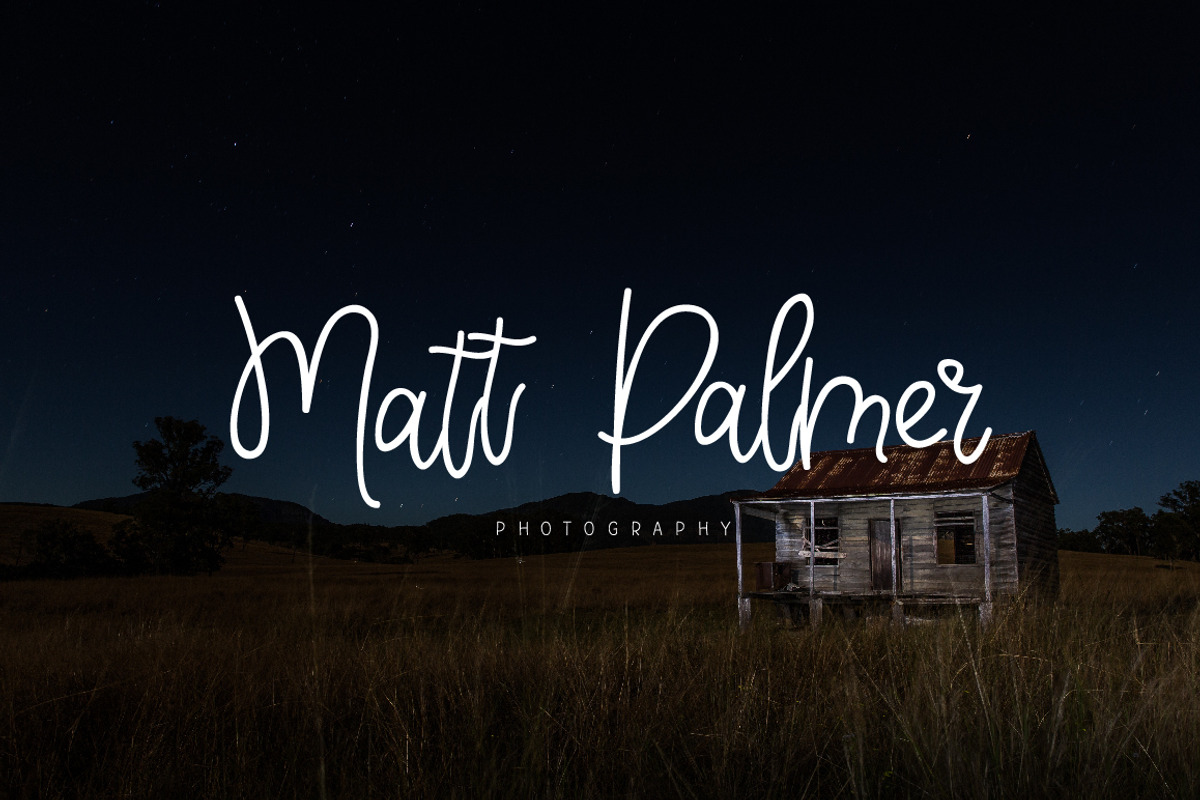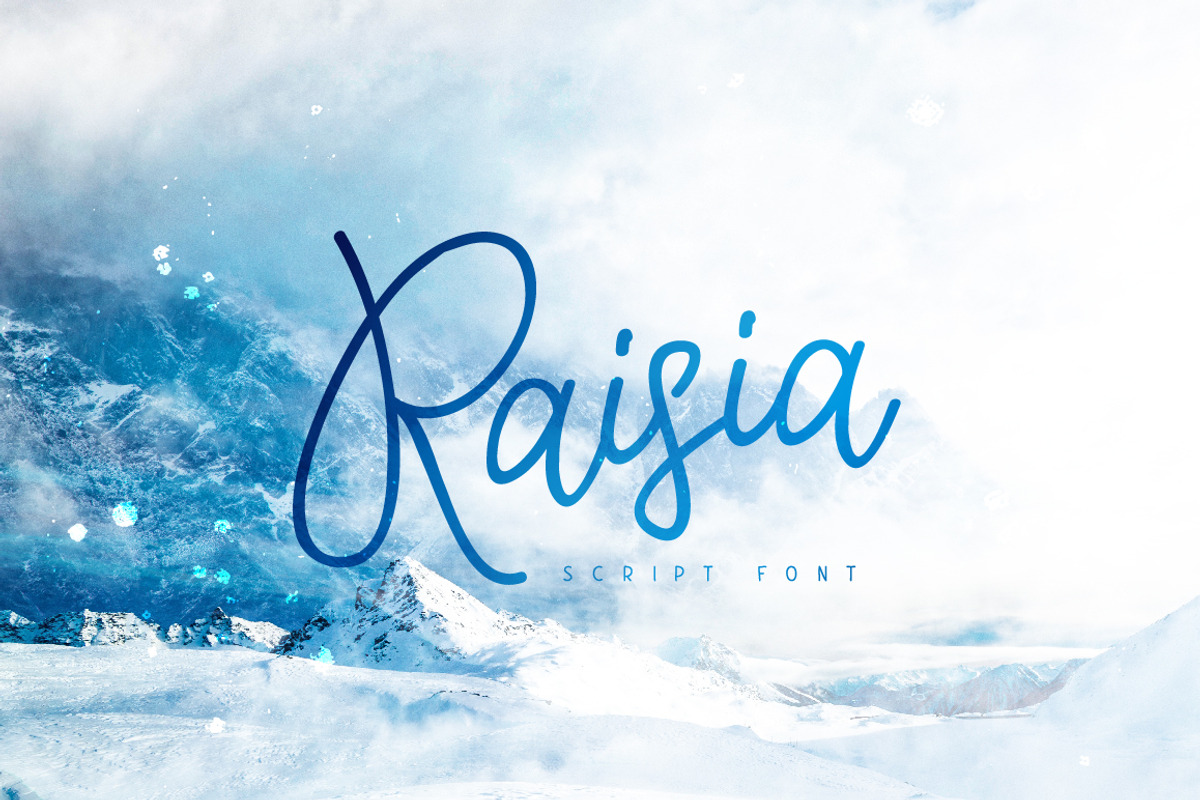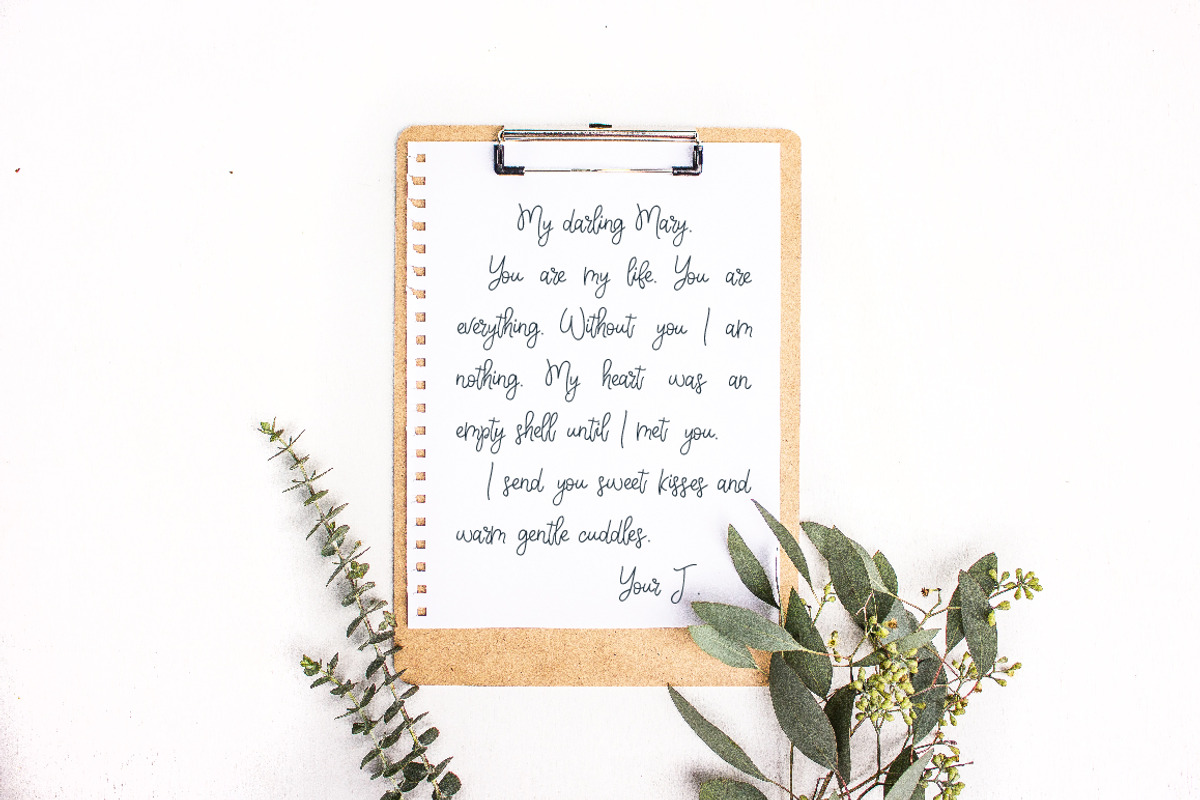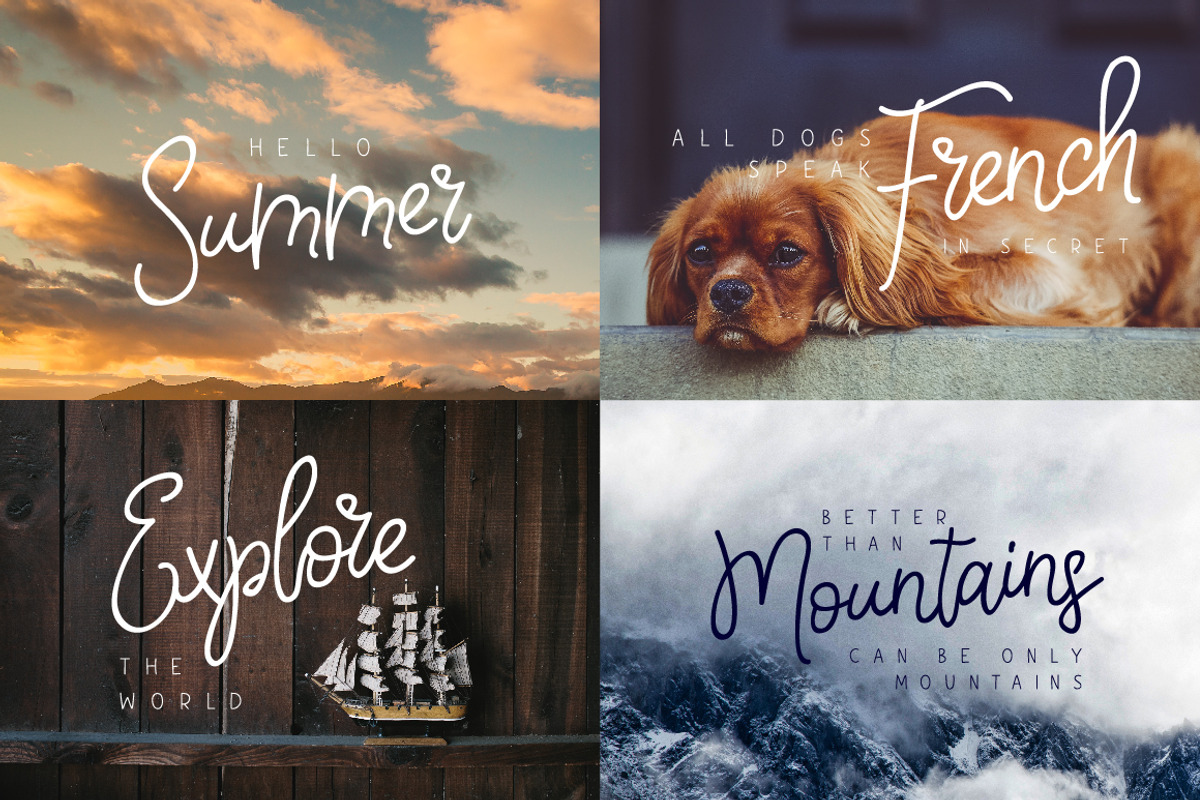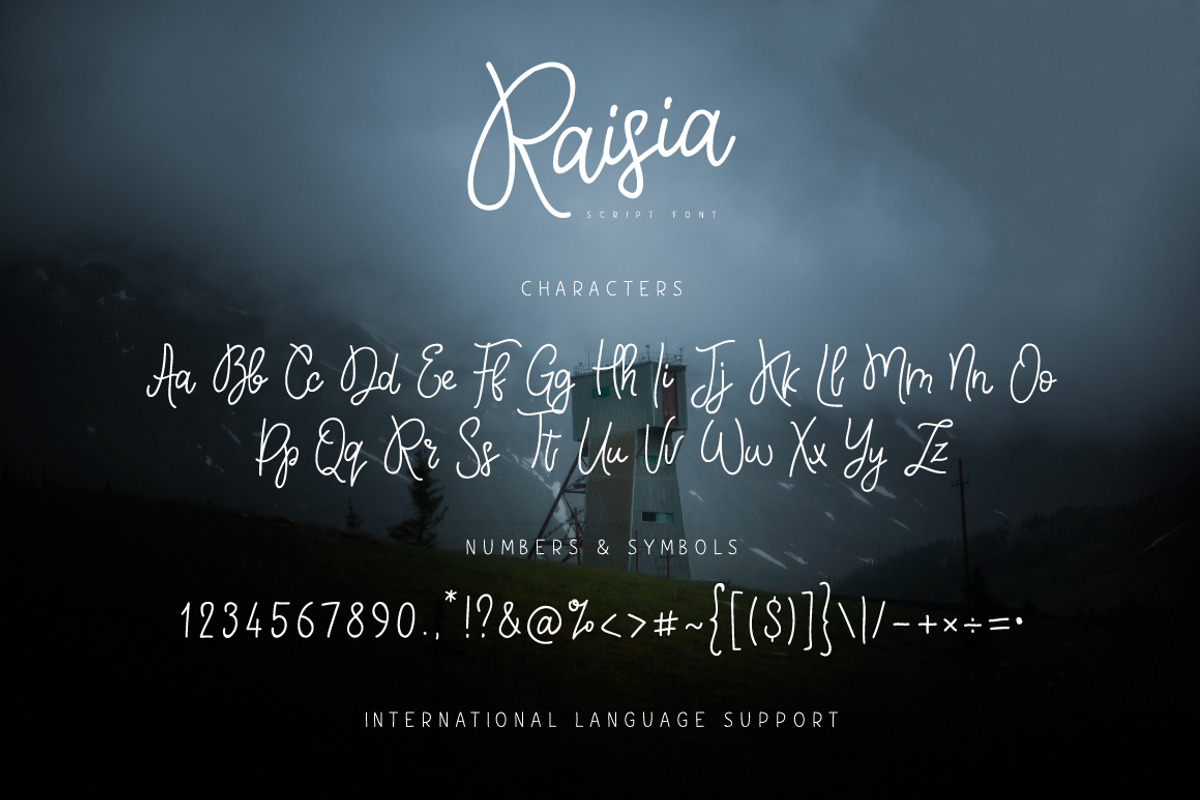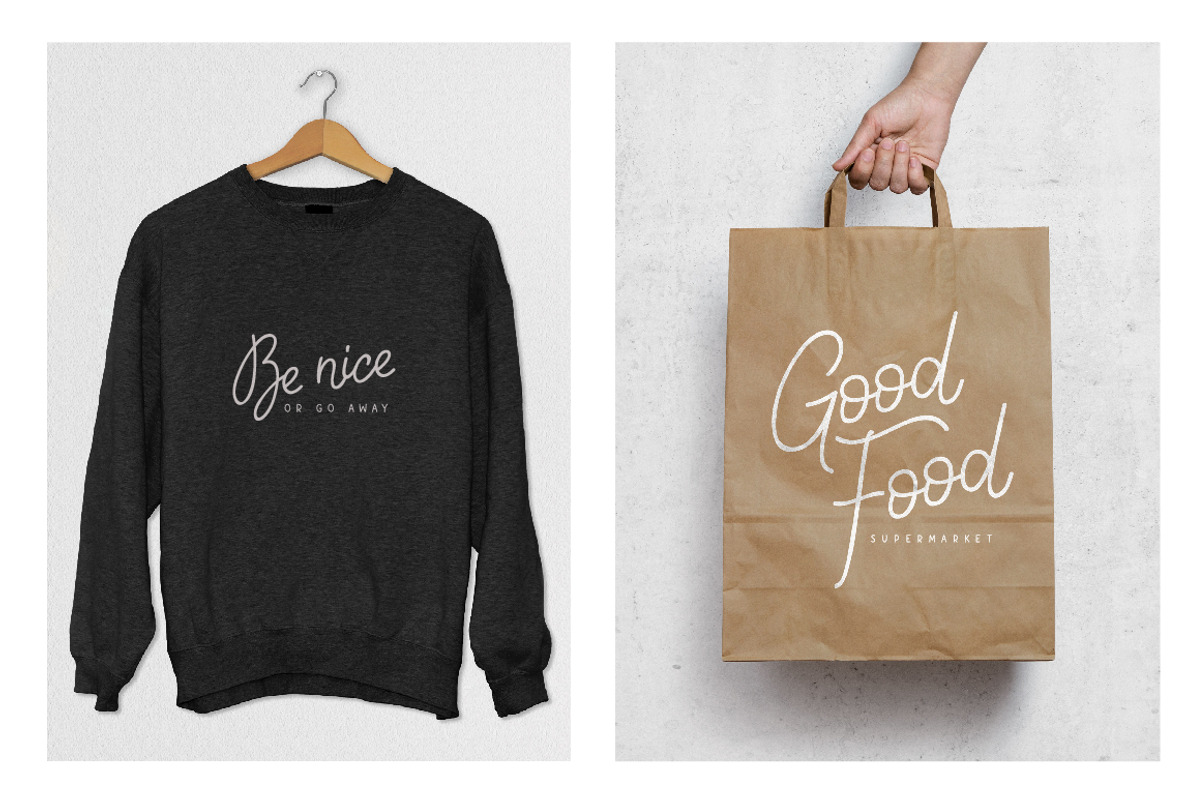
Raisia Script Font
Raisia Script Font by chekart is a font selected for branding, posters, packaging, typography.
- Raisia Script Font comes with uppercase and lowercase characters, large set of punctuation glyphs, numerals, and supports international lang
Why Raisia Script Font is worth a look
Raisia Script Font by chekart fits naturally into Branding, posters, packaging, typography.